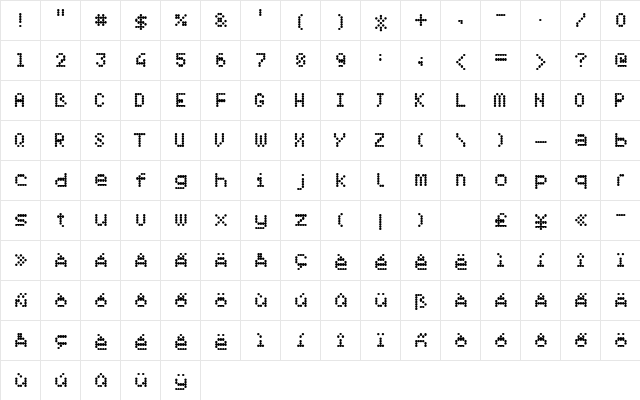
FGIntermatrix Regular
Design Context for FGIntermatrix Typeface
FGIntermatrix takes a measured approach to typography — its balanced proportions and neutral character make it a reliable workhorse for both digital and print work.
Pro Tip: Use FGIntermatrix in both headline and body roles to test its range before committing to a single application.